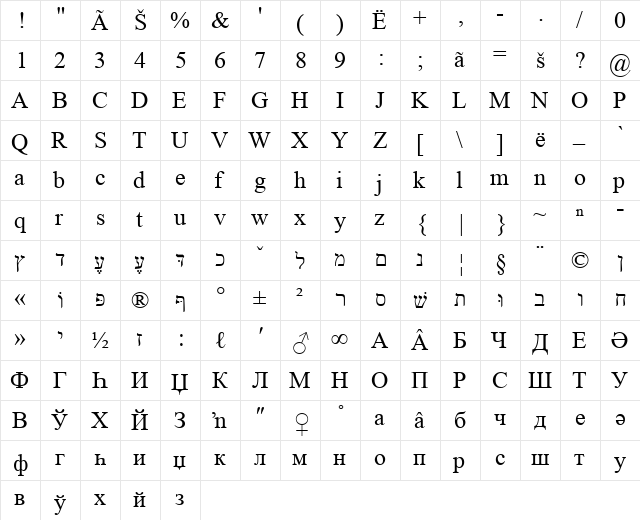
Zemanho ye Darseni Regular
| Designer | Libor Sztemon |
Design Context for Zemanho ye Darseni Typeface
Zemanho ye Darseni takes a measured approach to typography — its balanced proportions and neutral character make it a reliable workhorse for both digital and print work.